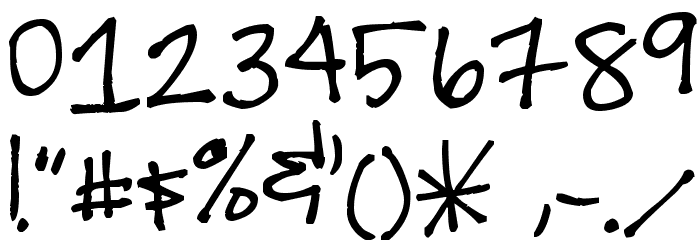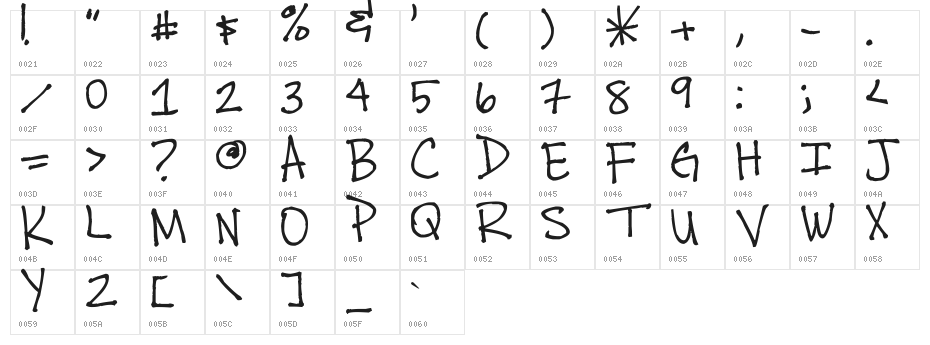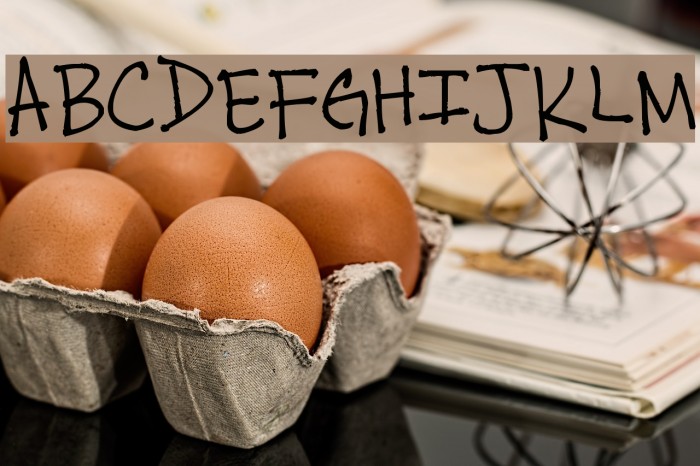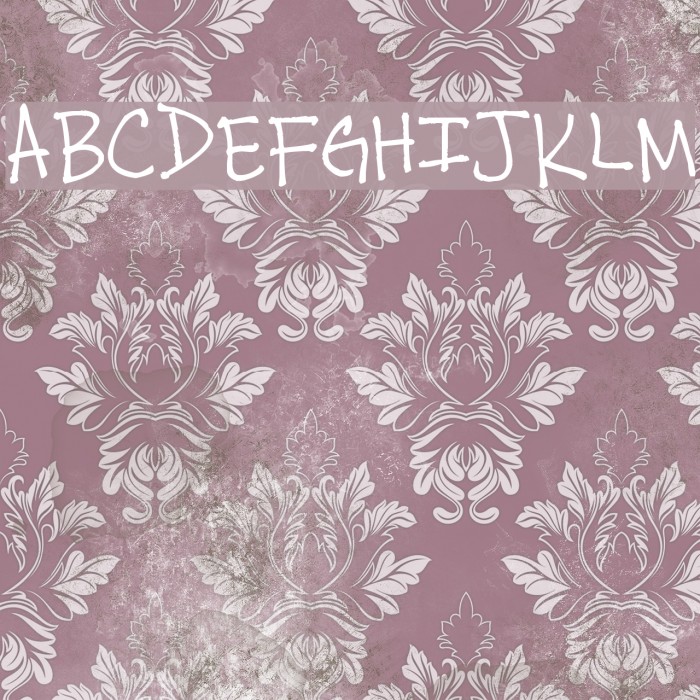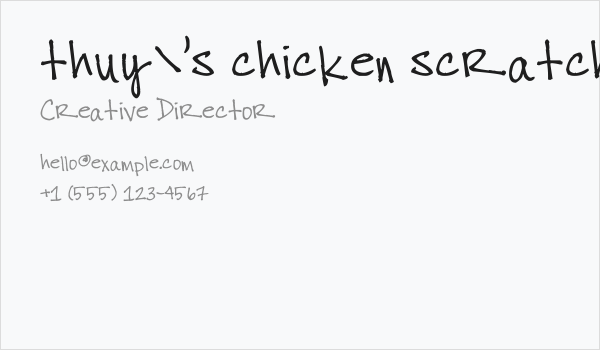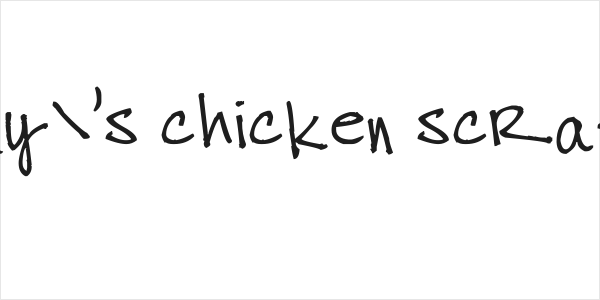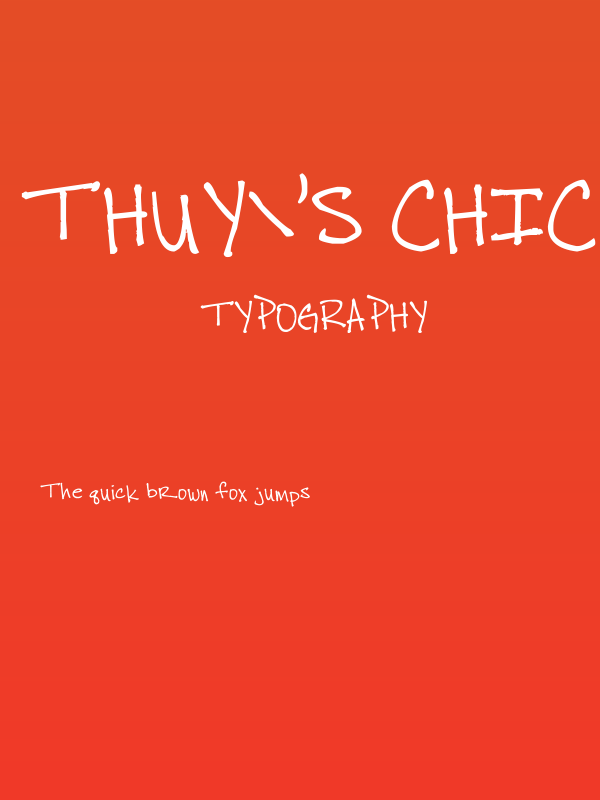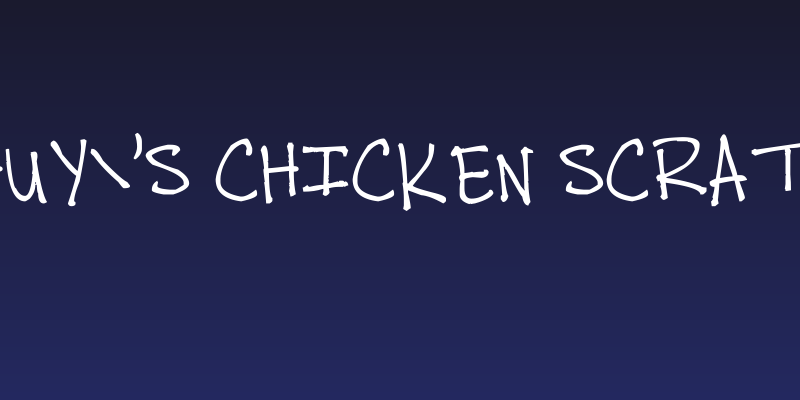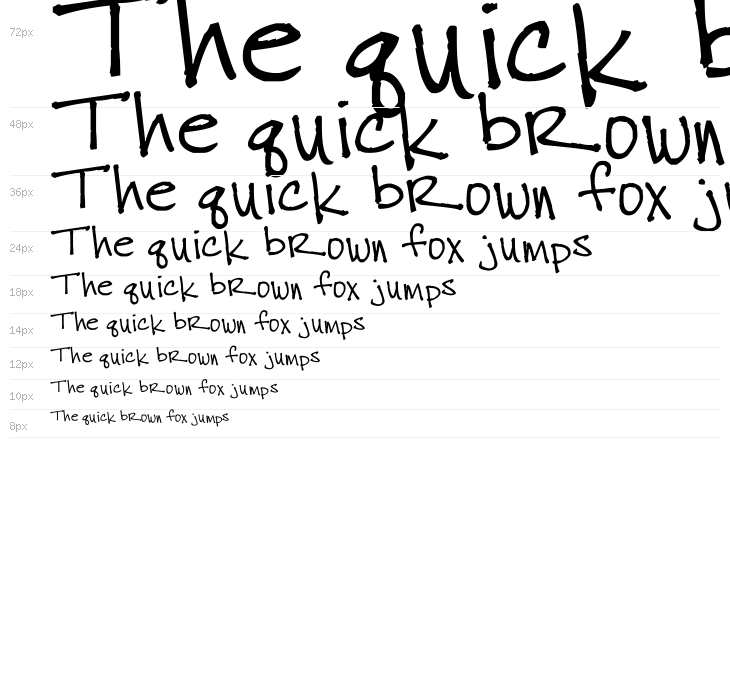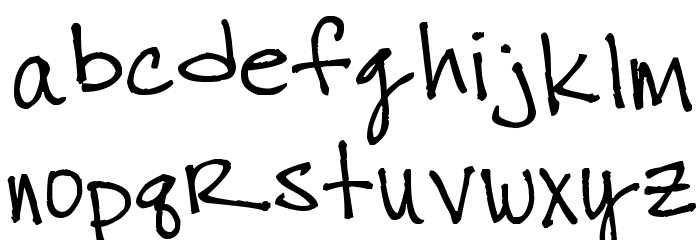
thuy's chicken scratch Font
thuy's chicken scratch Description
This font exudes a playful and casual handwritten style, reminiscent of quick, informal notes. The characters are unevenly spaced, with a slightly erratic baseline that adds to its charm. The strokes are bold and confident, with a slight variation in thickness that gives it a dynamic feel. The uppercase letters are tall and slightly narrow, while the lowercase letters maintain a consistent height, contributing to a cohesive look. Numbers and special characters follow the same playful style, making this font ideal for projects that require a personal touch.